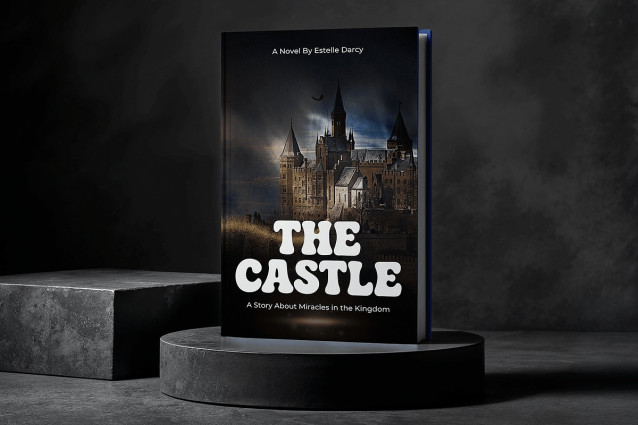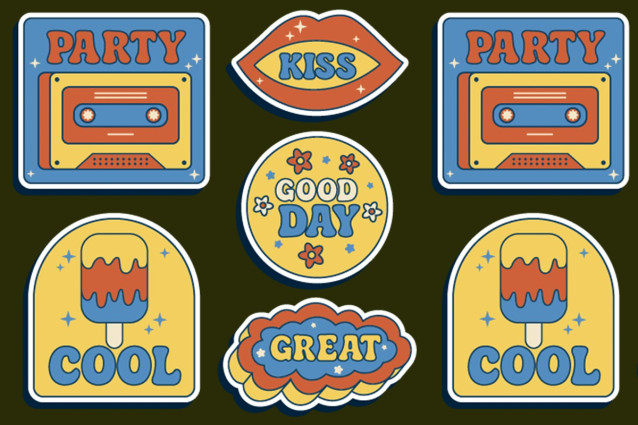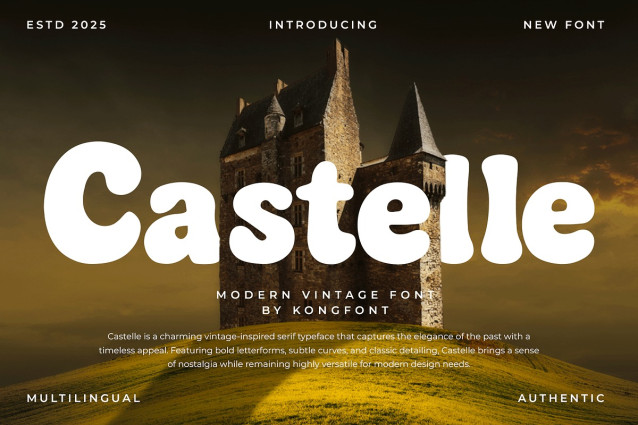
Castelle Font
Castelle Font a modern vintage font that beautifully bridges the gap between classic nostalgia and contemporary style. Inspired by timeless lettering and old-world craftsmanship, Castelle brings a refined retro touch to your modern designs.